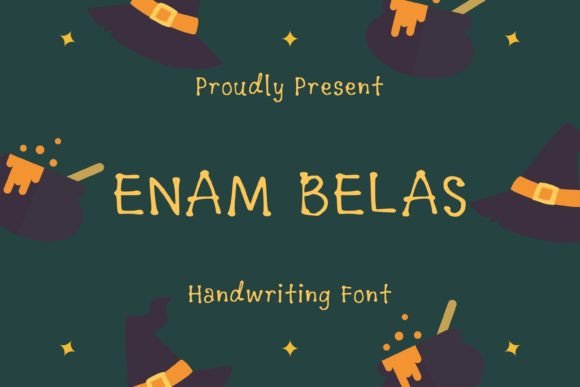
Unleash your creativity with Enam Belas Font, the enchanting script font that will add a touch of magic to your designs. This exceptional creation by sidkia.nf is meticulously crafted to exude uniqueness and charm, making it the perfect choice for adding a personal touch to your projects.
Immerse yourself in the beauty of this regular font, designed to captivate and inspire. Its intricate curves and elegant lines dance together effortlessly, creating visual masterpieces that will leave a lasting impression. With Enam Belas Font, you can effortlessly elevate your designs and make a statement that reflects your unique style.
Explore the endless possibilities that await you with Enam Belas Font. Whether you're a seasoned designer or just starting your creative journey, this font is the perfect companion for expressing your individuality. Its versatility shines through in a wide range of applications, from captivating logos and branding to eye-catching social media graphics and stunning website designs.